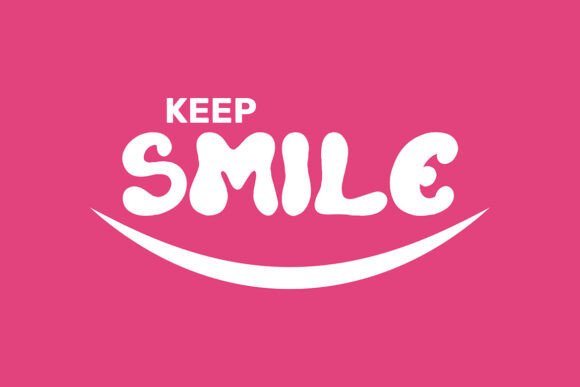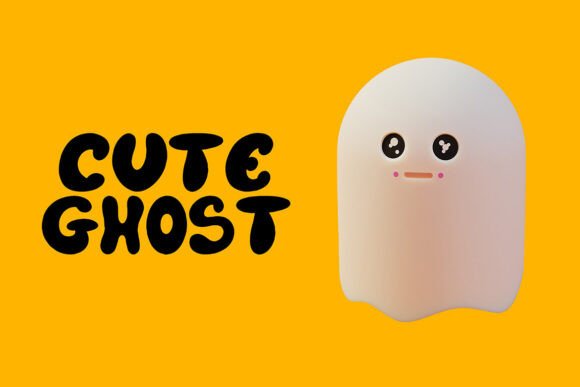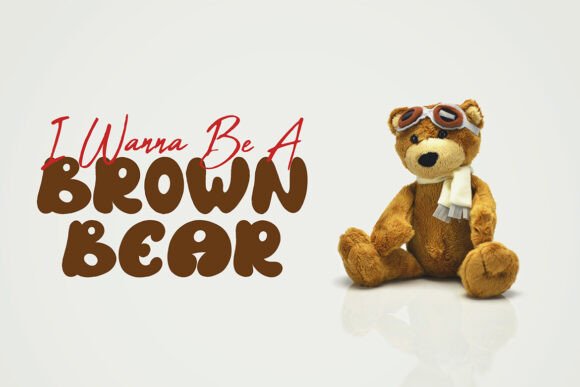
Introduction to Slime Bubble Font
Slime Bubble is a Playful Display Font that we designed with an original touch for your needs.
This cool font is complete with Uppercase, Lowercase, Numeric & symbols This very strong and sharp font is perfect for titles, typography, posters, magazines, brochures, packaging, Websites, and much more for your design needs, making your designs more cool.
Why Choose Slime Bubble Font?
Slime Bubble Font offers exceptional quality and versatility, making it a valuable addition to your design toolkit. Whether you’re creating for personal projects or commercial use, Slime Bubble Font delivers professional results.